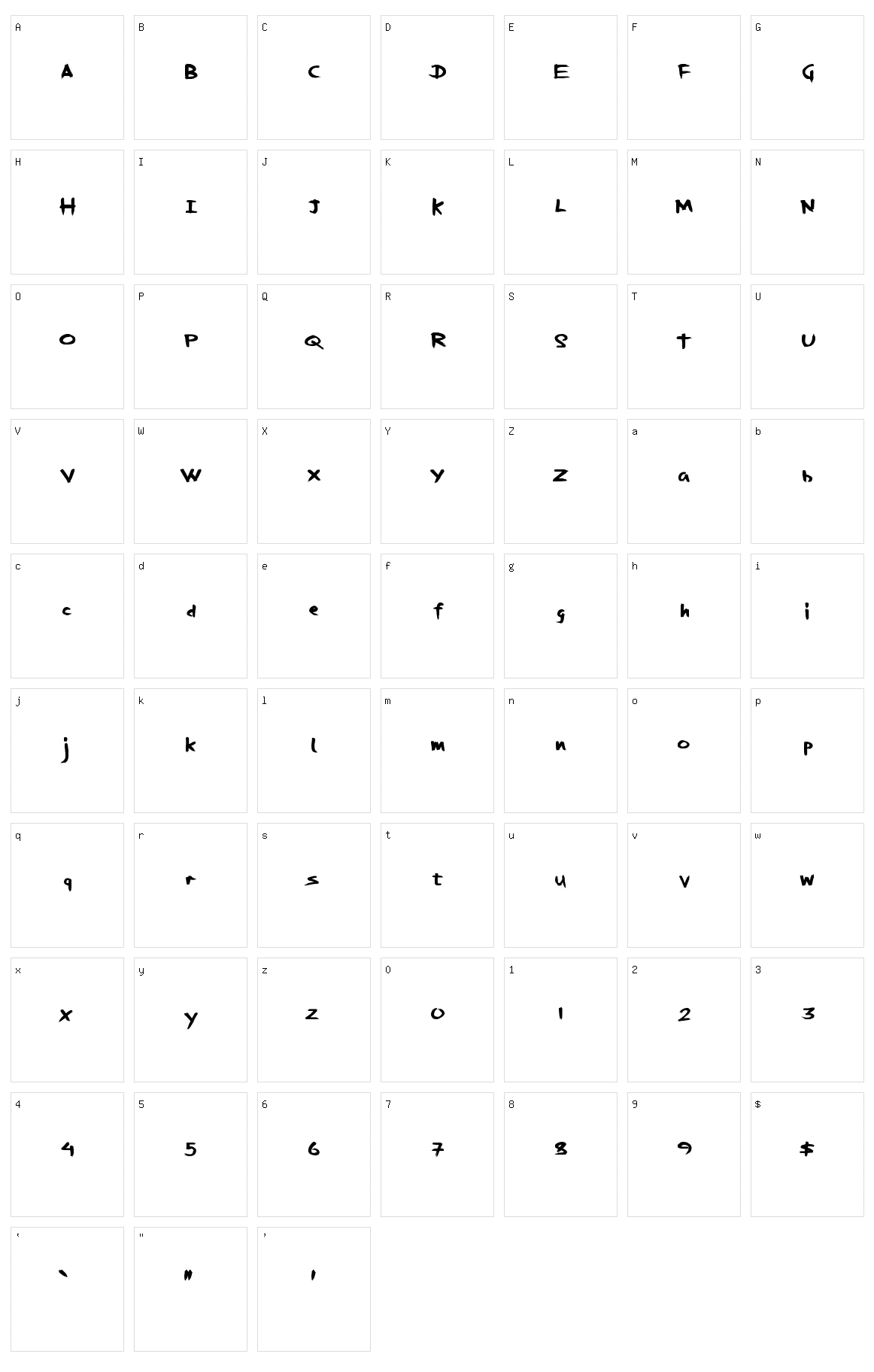
The free font Expensive Solutions is carefully designed by Xerographer Fonts, showcasing a thoughtful balance of creativity and usability and falls under the Script font style. When you download the ZIP file, it contains only 44.05 KB of font files, making it lightweight and quick to download. Please review the license details below to understand permitted usage and distribution rights. If license information is not available, we recommend using this font for personal projects only or contacting the author directly for commercial usage permissions.